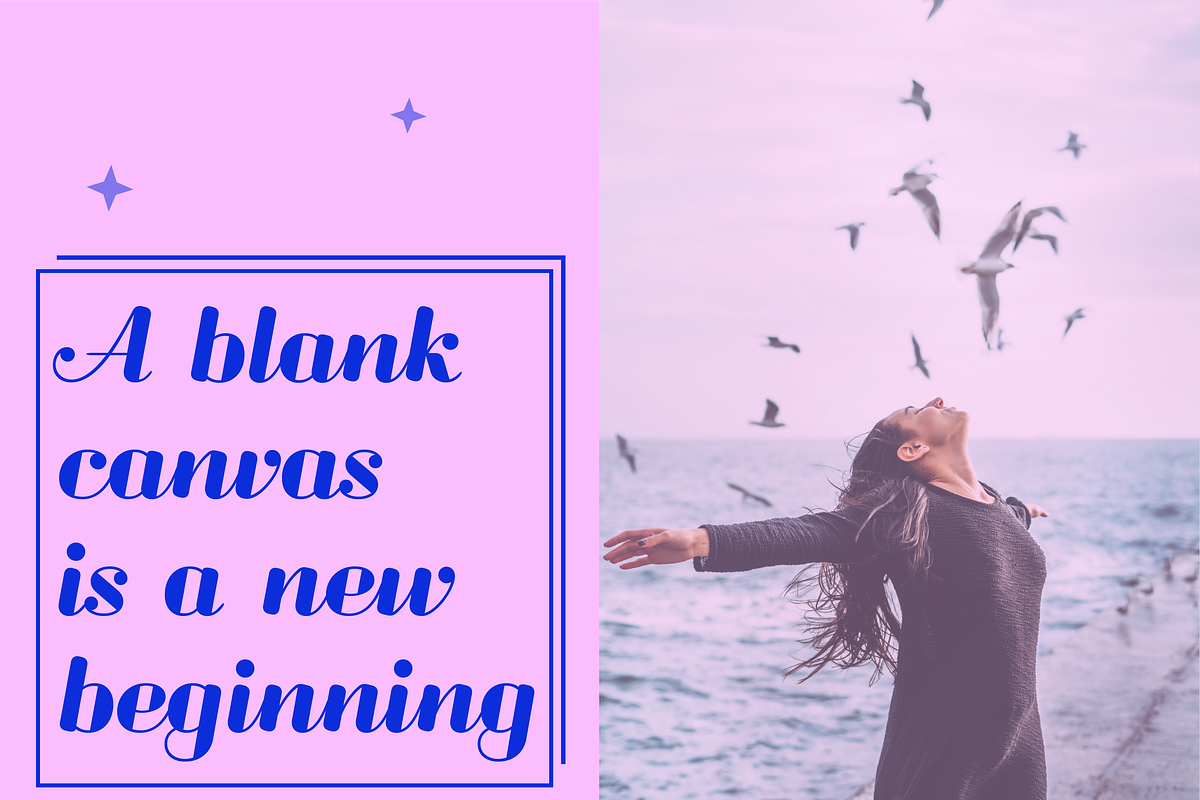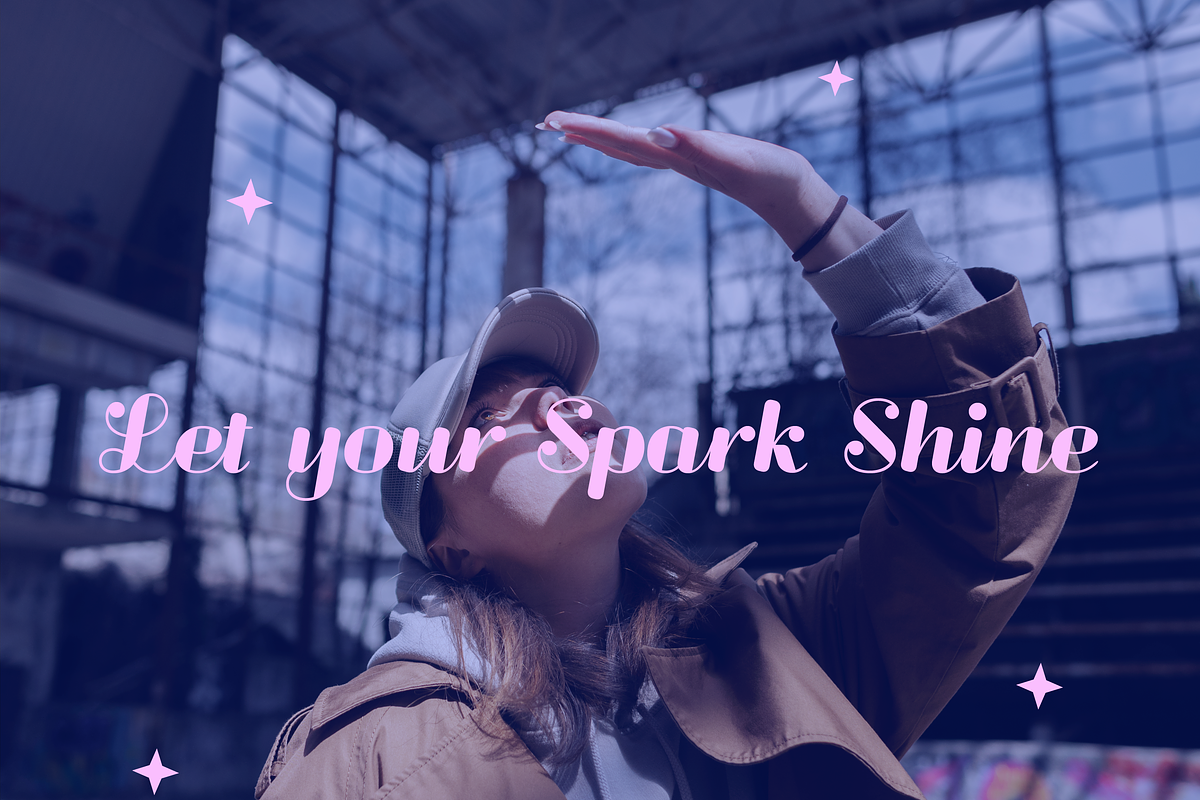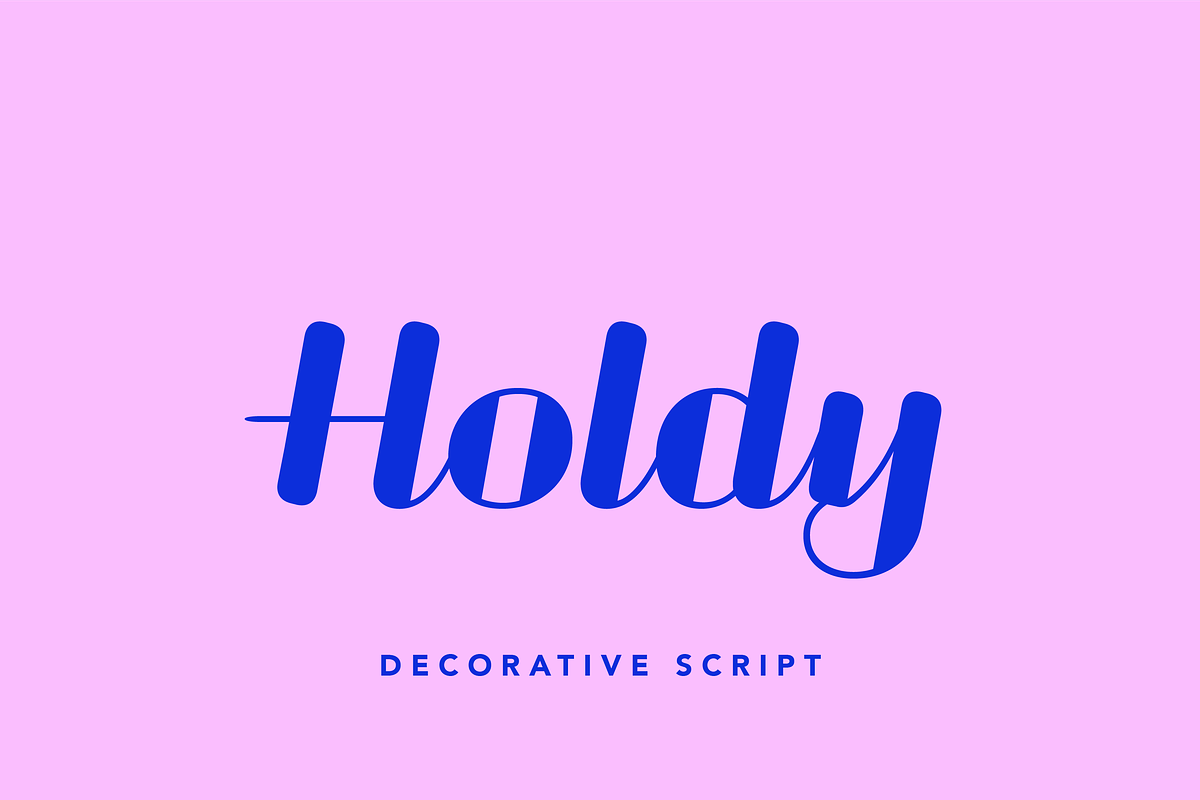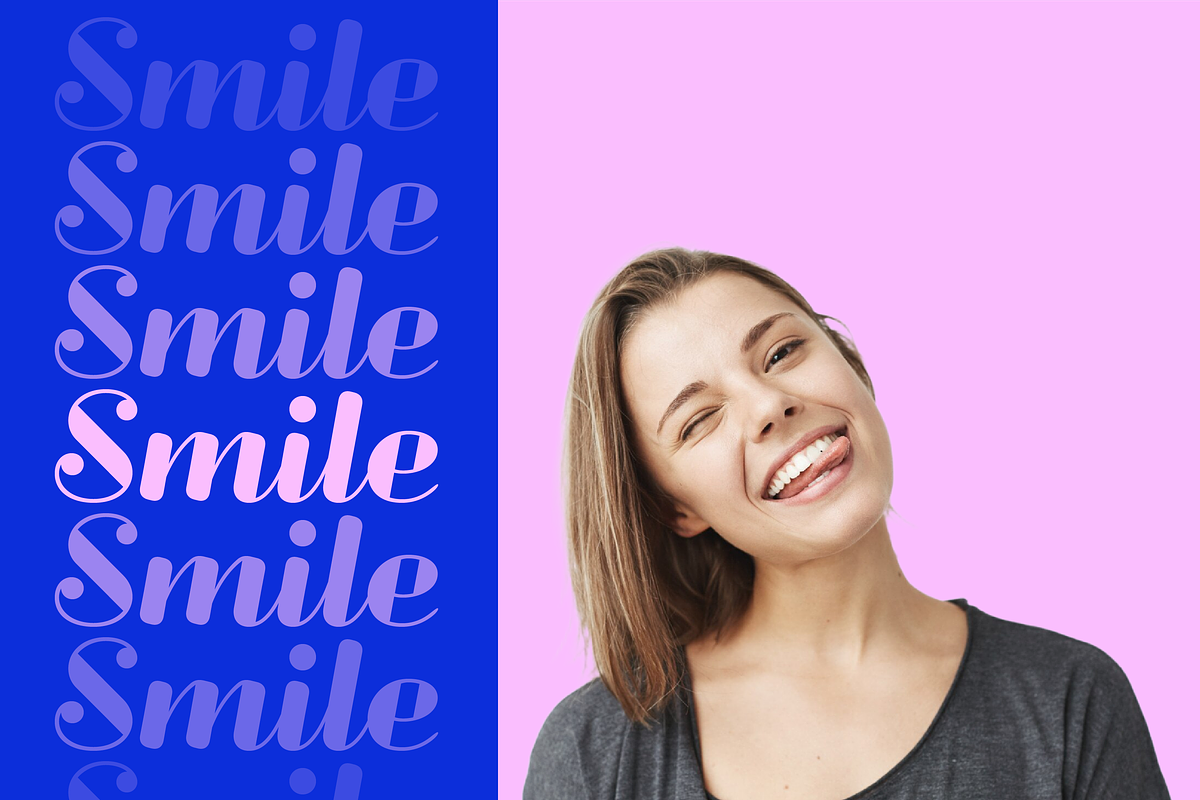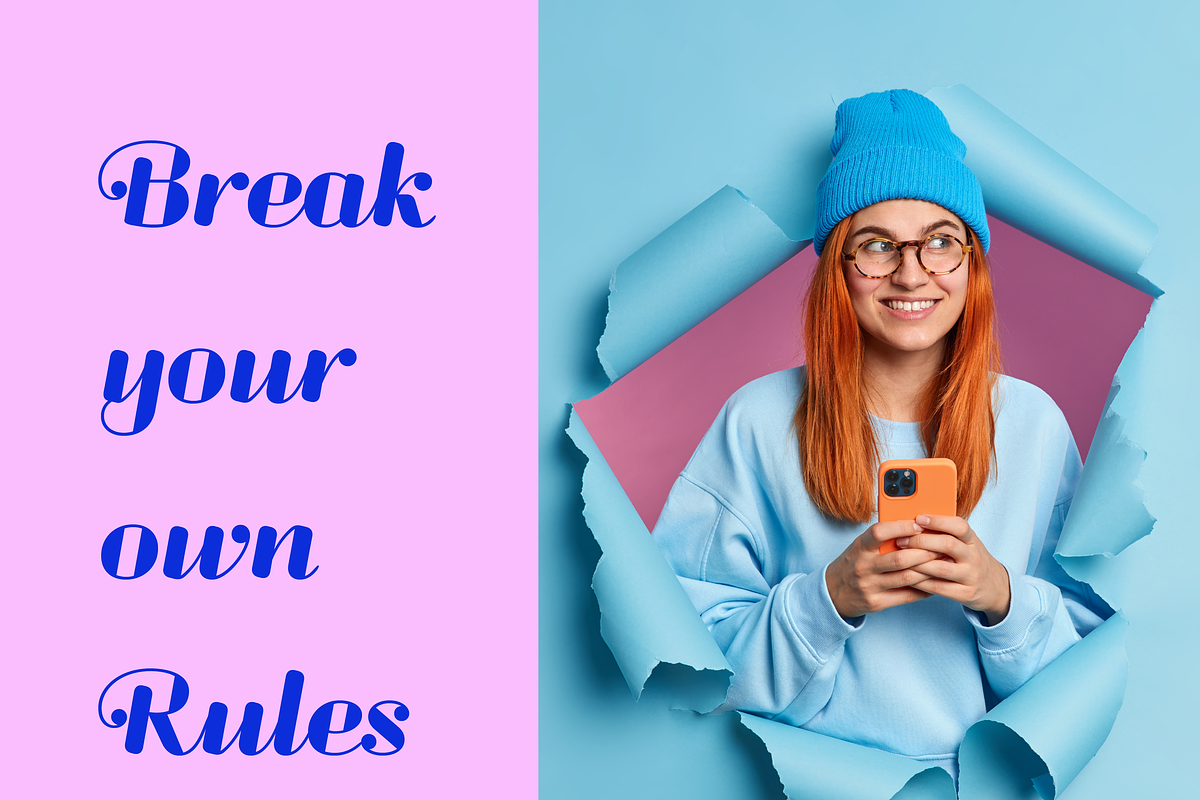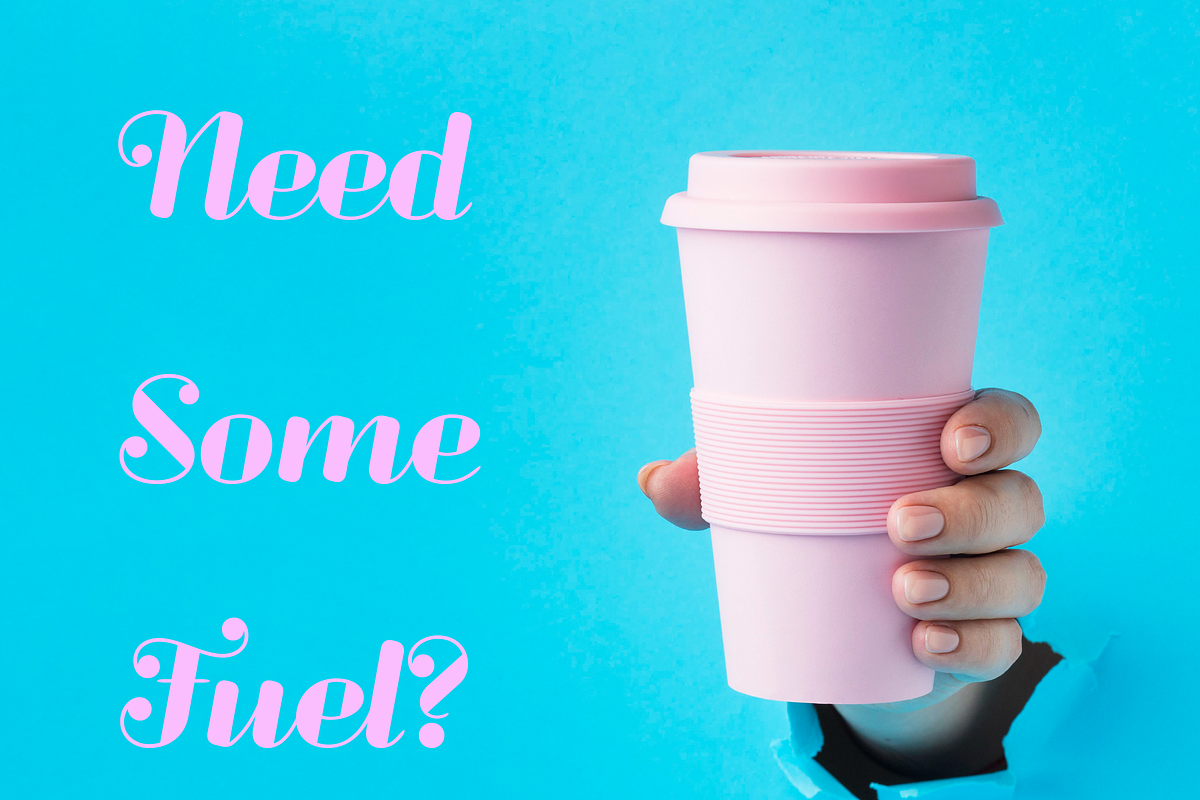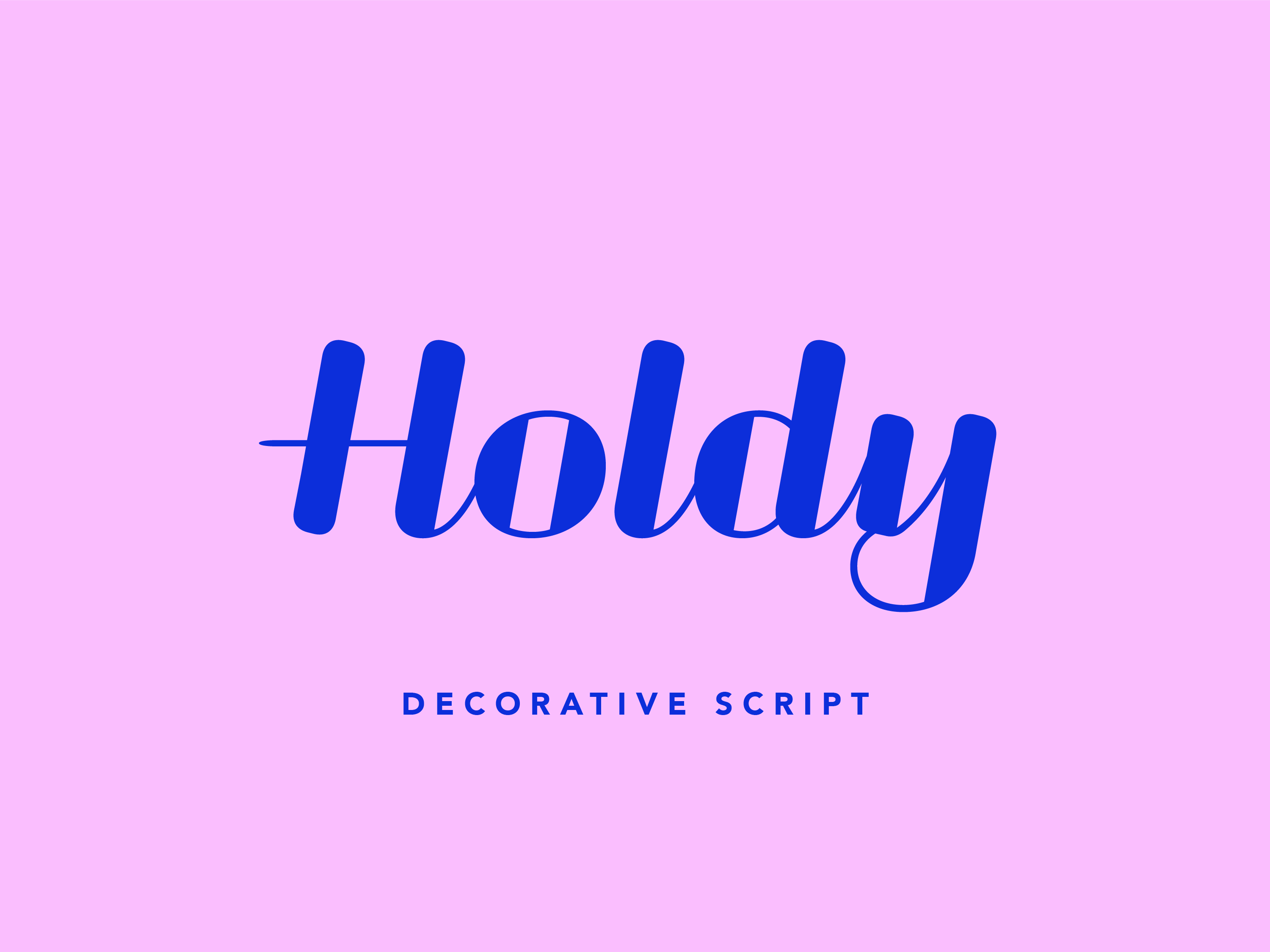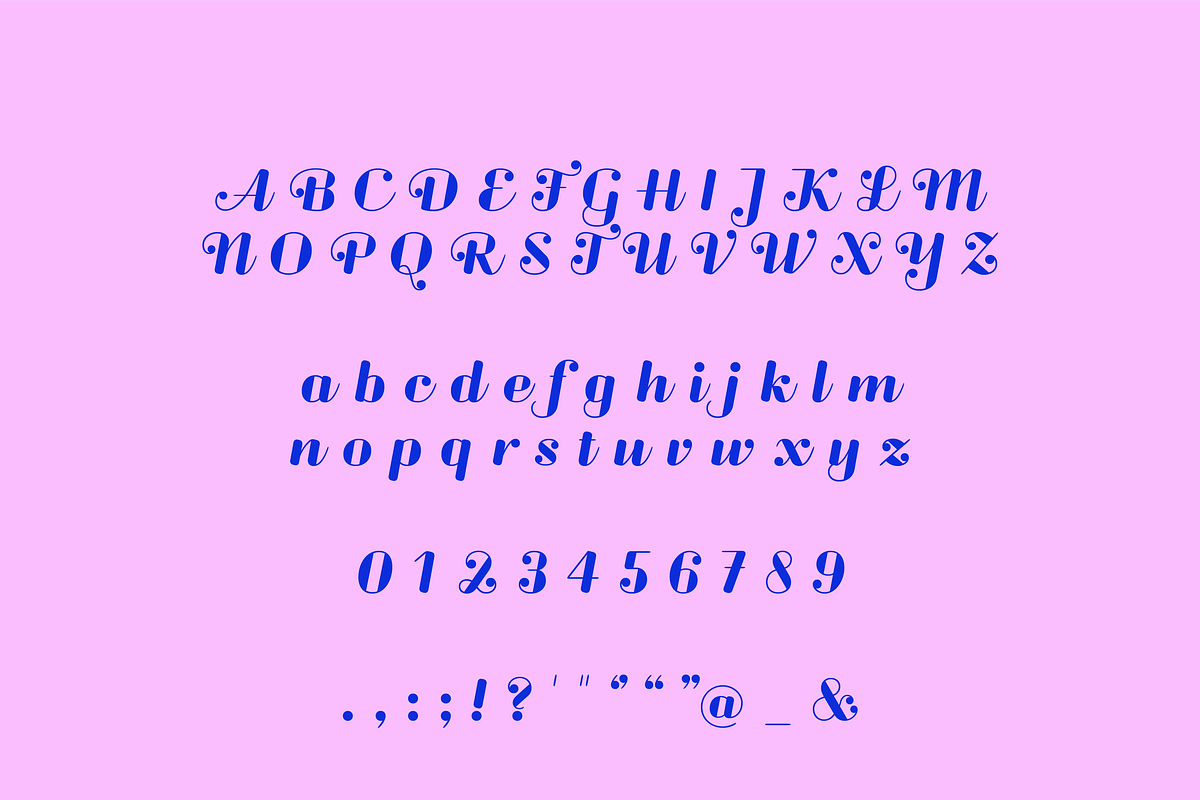
Holdy Retro Font
Holdy – A Vibrant Fusion of Craft and Nostalgia
Holdy is a bold and expressive font that merges the structured precision of craftsmen’s block letters with the fluid energy of script. This unique combination captures the essence of retro signage, evoking a sense of nostalgia while maintaining a fresh, contemporary appeal.
Decorative yet modular, Holdy strikes the perfect balance between artistry and functionality, making it an excellent choice for eye-catching logos, vintage-inspired branding, and standout headlines. Whether you're channeling mid-century charm or seeking a distinctive typographic statement, Holdy brings character and vibrancy to any project.